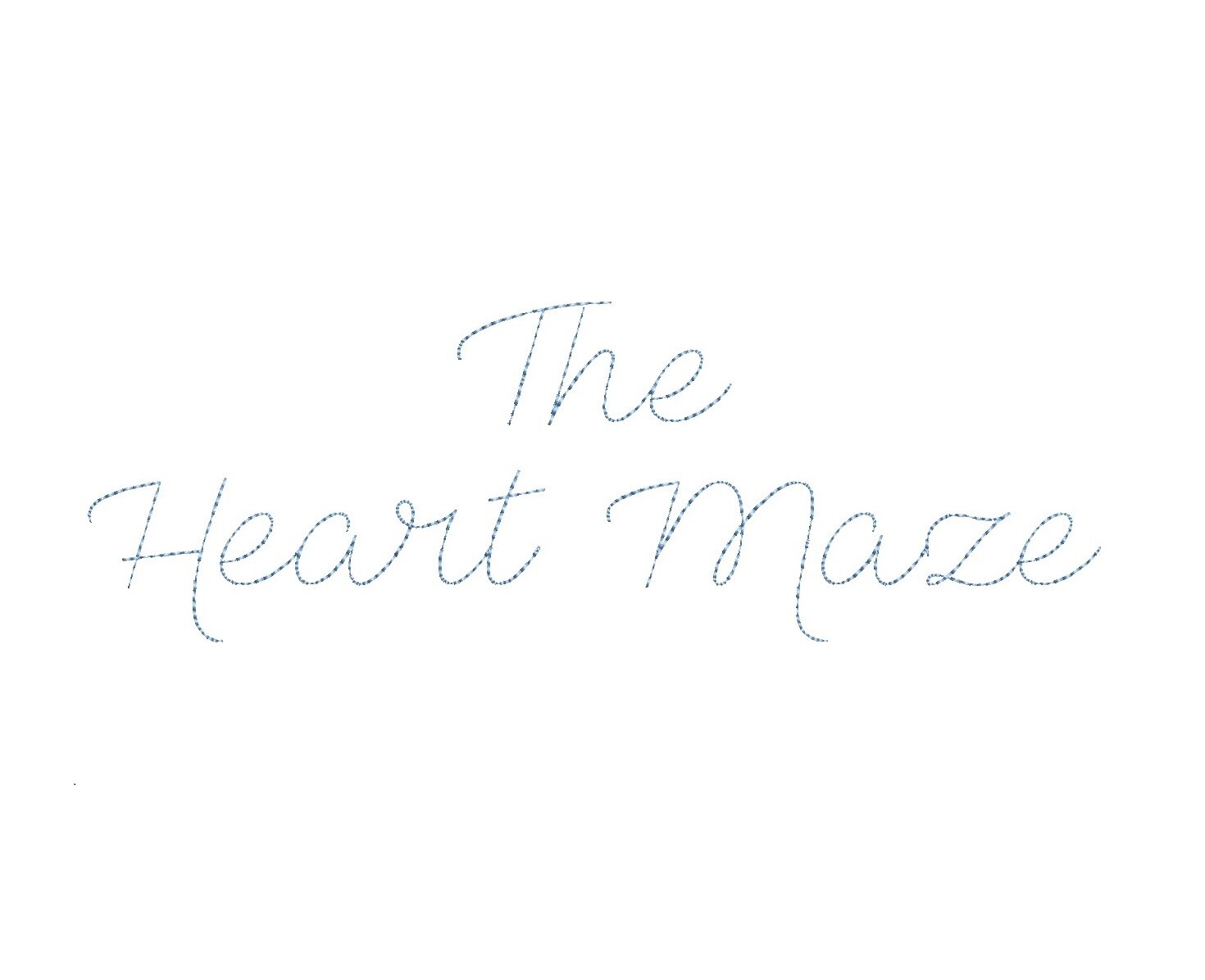
Unveil the enchanting Heart Maze Bean Stitch ESA font, a masterpiece of embroidery design tailored for your creative endeavors. Seamlessly compatible with Wilcom Studio e4.5.6 and Hatch 3 versions and beyond, this font ensures impeccable stitch precision and intricate detailing. Let your embroidery artistry shine with the captivating bean stitch pattern, adding a touch of charm to any textile creation, from monograms to intricate designs. Explore boundless creative possibilities with this font's versatility. Optimized for SEO, it guarantees both visual brilliance and search engine prominence. Don't miss out on this exceptional embroidery asset to elevate your craft today!